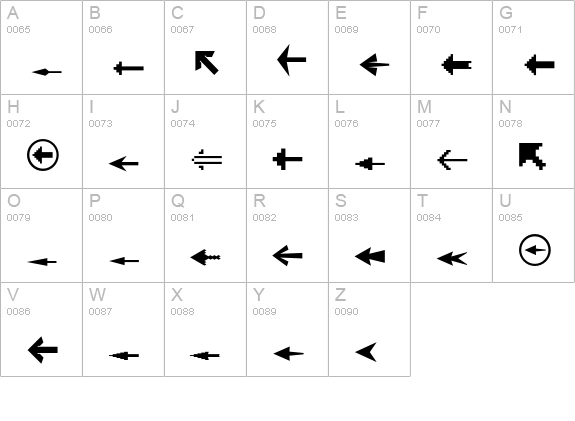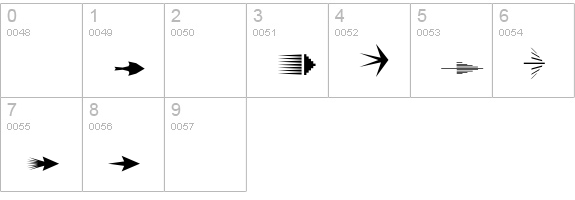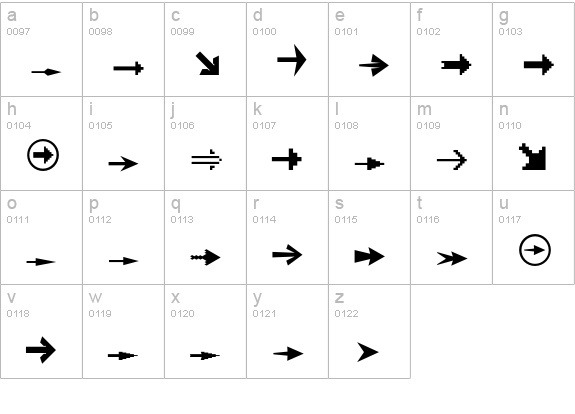
Fleches-LeftRight Font Details
Fleches-LeftRight font is a stunning typeface that effortlessly combines elegance with modernity. With its unique arrow-inspired design, this font exudes a sense of movement and direction, perfect for adding a dynamic touch to your designs. The sleek lines and sharp angles of Fleches-LeftRight font make it a versatile choice for a wide range of projects, from branding to editorial design. Best of all, Fleches-LeftRight font is completely free to download at FontsMarket.com. Whether you're a seasoned designer looking to refresh your font library or a beginner experimenting with new styles, Fleches-LeftRight font is a must-have addition to your collection. Don't miss out on this stylish and eye-catching font that is sure to elevate your designs to the next level. Download Fleches-LeftRight font today and let your creativity soar!